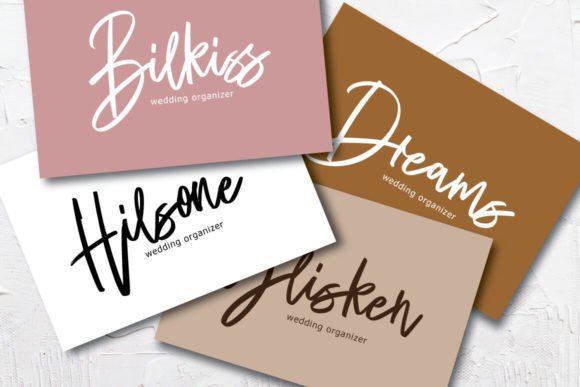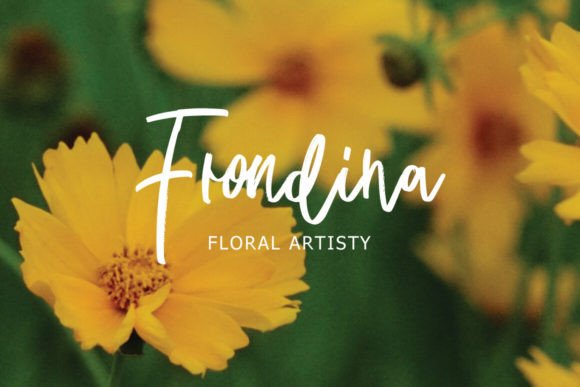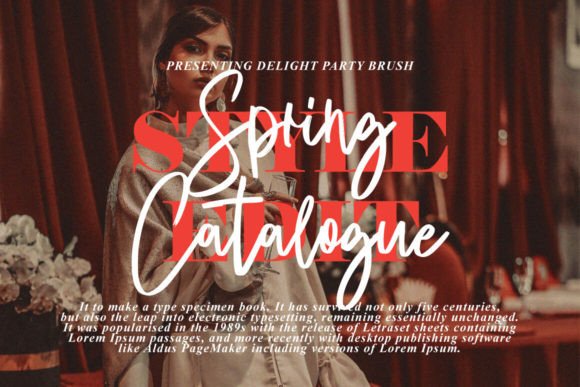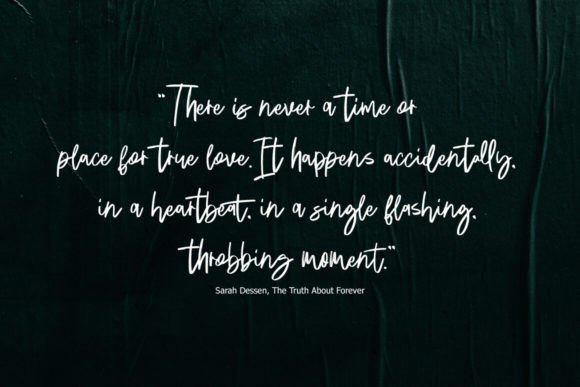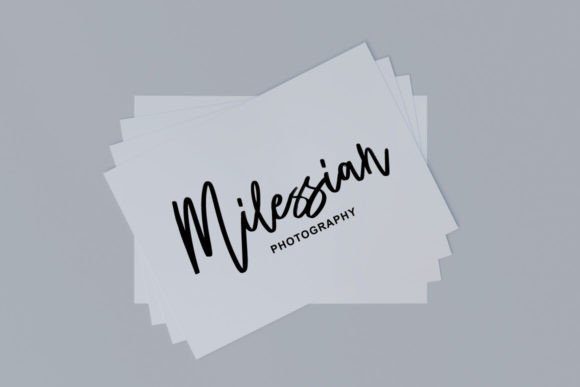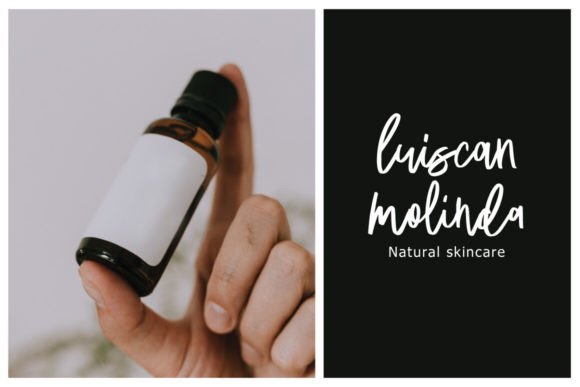
Introducing Delight Party Font: The Perfect Choice for Your Creative Projects
Are you a designer or crafter looking for a unique and eye-catching font to elevate your creative projects? Look no further than Delight Party Font! This lovely and timeless handwritten font is the perfect choice for creating stunning logos, branding, and quotes that will leave a lasting impression.
What Makes Delight Party Font So Special?
Delight Party Font is a beautifully crafted handwritten font that boasts a unique and beautiful touch. Every letter is carefully designed to add a personal touch to your designs, making them stand out from the crowd. The font’s elegant and cursive style makes it perfect for a wide range of creative projects, from wedding invitations and branding materials to social media graphics and quotes.
Key Features of Delight Party Font
- Unique and Beautiful Touch: Each letter in Delight Party Font has a distinct and beautiful touch that will add a personal touch to your designs.
- Timeless Handwritten Style: The font’s handwritten style is both classic and timeless, making it perfect for a wide range of creative projects.
- Elegant and Cursive: Delight Party Font features an elegant and cursive style that is perfect for creating stunning logos, branding, and quotes.
- Easy to Read: Despite its elegant style, Delight Party Font is easy to read, making it perfect for use in body text and captions.
Why Choose Delight Party Font?
There are many reasons why Delight Party Font is the perfect choice for your creative projects. Here are just a few:
- Stand Out from the Crowd: With Delight Party Font, you can create designs that stand out from the crowd and leave a lasting impression.
- Perfect for Branding: The font’s elegant and cursive style makes it perfect for use in branding materials, such as logos, business cards, and letterheads.
- Versatile: Delight Party Font is versatile and can be used in a wide range of creative projects, from digital designs to print materials.
How to Use Delight Party Font in Your Designs
Using Delight Party Font in your designs is easy! Here are a few tips to get you started:
- Pair it with Other Fonts: Delight Party Font pairs perfectly with other fonts, such as sans-serif fonts and script fonts.
- Use it for Headings: The font’s elegant style makes it perfect for use in headings and titles.
- Add a Personal Touch: Use Delight Party Font to add a personal touch to your designs, such as in quotes and captions.
In conclusion, Delight Party Font is a lovely and timeless handwritten font that is perfect for creating eye-catching logos, branding, and quotes. With its unique and beautiful touch, elegant and cursive style, and versatility, it’s the perfect choice for designers and crafters of all levels. So why wait? Download Delight Party Font today and take your creative projects to the next level!